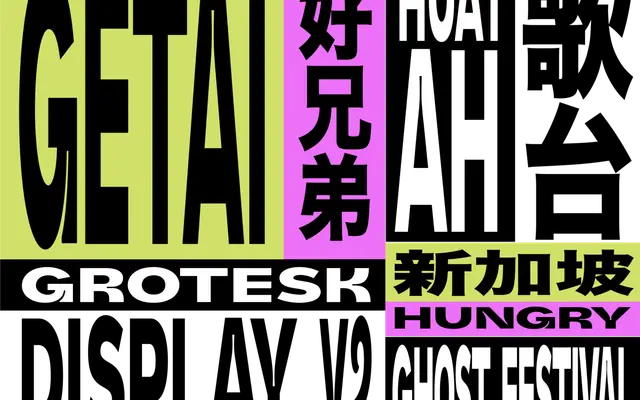
DT Getai Grotesk Display
Death of Typography · Sylvester Tan
A single-weight open-source display grotesque by Sylvester Tan, drawing on Chinese Getai calligraphic forms and featuring consistent ink traps across the character set.
Designed by Sylvester Tan under the Death of Typography collective in Singapore, the face takes its cultural reference from Getai, a form of Chinese street performance, translating calligraphic curve sensibilities into a Latin grotesque skeleton. Ink traps appear not only at junctions but as a consistent detail throughout, giving the letterforms a quiet structural rhythm even in characters without curves. Released under the Open Font Licence, it is free for both commercial and non-commercial use.
A single-weight display grotesque with culturally inflected letterforms; the ink traps and calligraphic curve references position it firmly as a display-only face rather than a text grotesque.